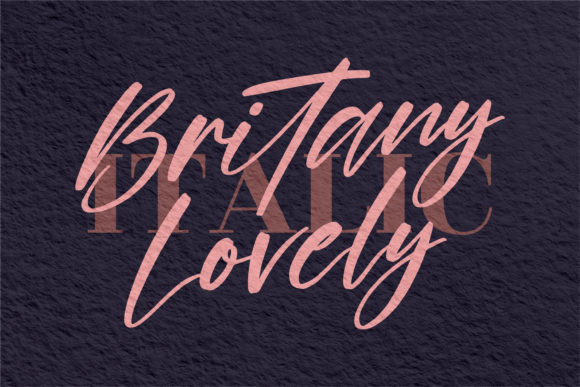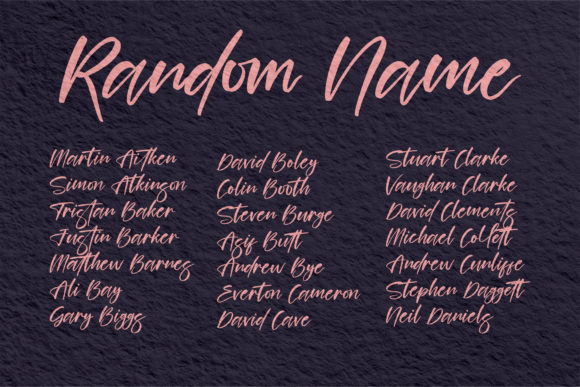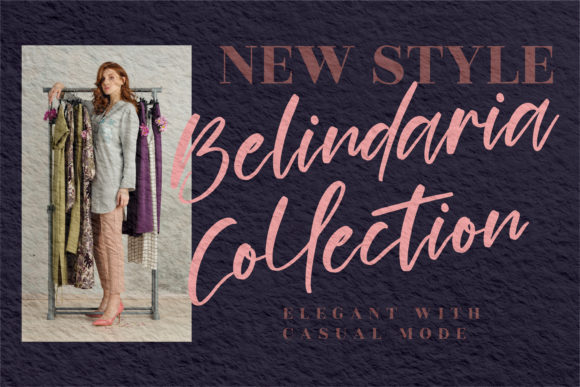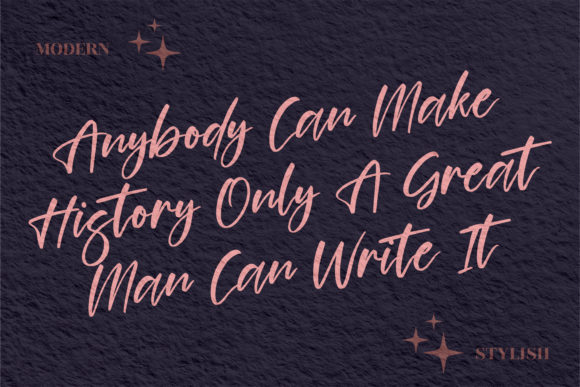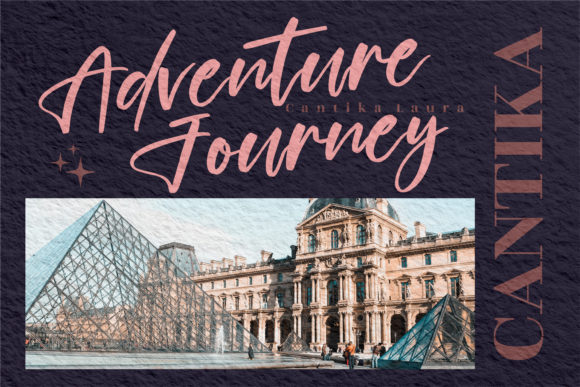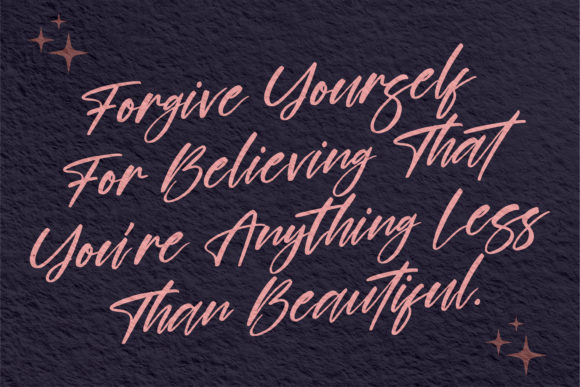
Discovering the Perfect Script: Britany Lovely Font
Have you ever been browsing through a beautifully designed website or social media post, and suddenly, you’re inspired to create something just as stunning? For me, that moment often happens when I stumble upon a perfectly crafted script font. It’s as if the letters come alive, dancing across the page in a mesmerizing rhythm. That’s exactly what I experienced when I first laid eyes on the Britany Lovely Font – a gorgeous and delicate script font that exudes elegance and class.
Designed specifically for those who crave a beautiful and refreshing look for their designs, the Britany Lovely Font is a must-have for any creative enthusiast. With its PUA encoding, you can easily access all the glyphs and swashes, giving you the freedom to unleash your creativity and create truly unique designs. Whether you’re a graphic designer, artist, or simply a lover of beautiful typography, the Britany Lovely Font is sure to become your new favorite companion.
Britany Lovely Font Key Features
- Font Family: Britany Lovely Font is a beautiful, elegant script font designed for use in various creative projects.
- Character Set: Includes a wide range of characters, including uppercase and lowercase letters, numbers, and punctuation marks.
- Unique Characteristics: Britany Lovely Font features a beautiful, flowing script design with a touch of elegance and sophistication, making it perfect for wedding invitations, greeting cards, and other special occasions.
Britany Lovely Font Review
I’ve had the chance to work with the Britany Lovely Font and here’s my honest take on it. ✨ One of the things I like most about this font is its playful and elegant feel. It’s perfect for creating a whimsical and feminine vibe in your designs. The script style is beautifully crafted, and the variations in letterforms make it visually appealing.
Another aspect I appreciate is the excellent legibility. The font is clear and easy to read, making it suitable for body text and headlines alike. The font also comes with a wide range of weights and styles, giving you ample flexibility in your designs.
- ⚠️ Limited language support might be a concern for designers who need to work with non-Latin scripts. This font is primarily designed for English and other Latin-based languages.
- ⚠️ The font’s scalability might not be ideal for extremely large or small text sizes. You may notice some loss of detail at these extremes.
Overall, I think the Britany Lovely Font is a great addition to any designer’s toolkit. Its unique style and excellent legibility make it a great choice for a wide range of design projects. While it has some limitations, these can be easily worked around with a little creativity and planning.
Tip: Use the Britany Lovely Font for creating beautiful, elegant titles and headings.
Tip: Use the Britany Lovely Font for creating custom, handwritten-style text in your designs.
Tip: Use the Britany Lovely Font for creating beautiful, elegant text in your presentations and documents.
The Britany Lovely Font is ideal for:
- Birth announcements and baby shower invitations
- Custom signs and wall art
- Personalized gifts and cards
What is the character set and language support for the Britany Lovely Font?
The Britany Lovely Font includes a comprehensive character set that supports Latin, Cyrillic, and Greek alphabets, as well as a range of punctuation and symbol characters. Language support includes English, Spanish, French, German, Italian, Portuguese, and many others. The font also includes support for Unicode characters, making it suitable for use in a variety of languages and applications.